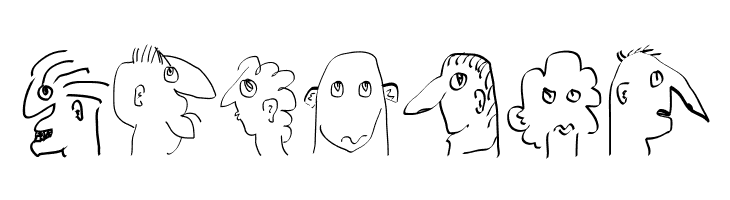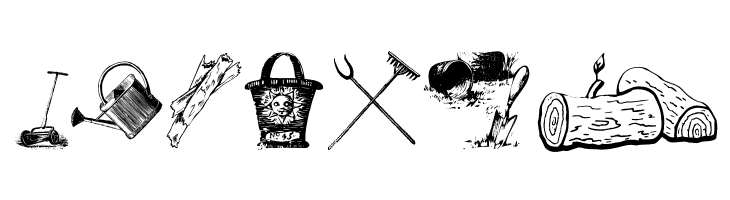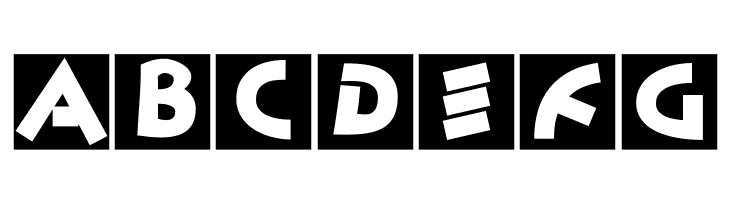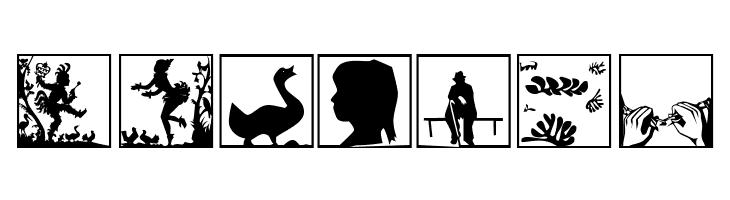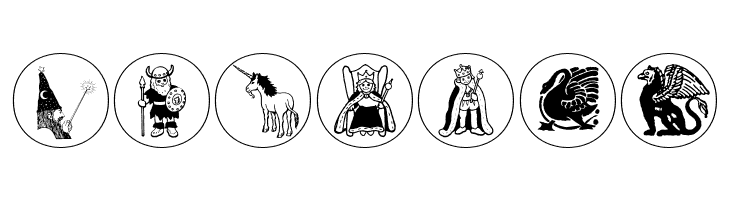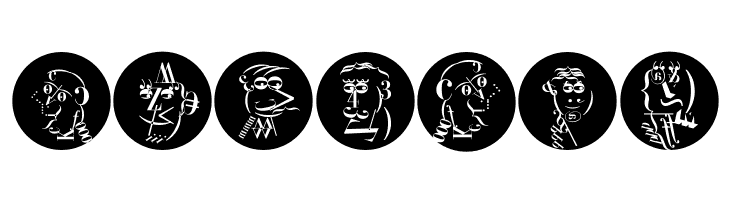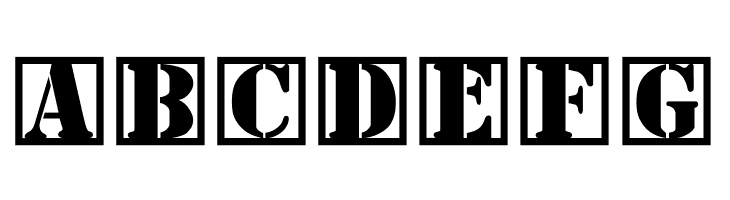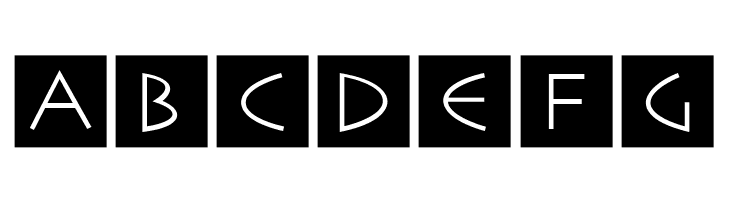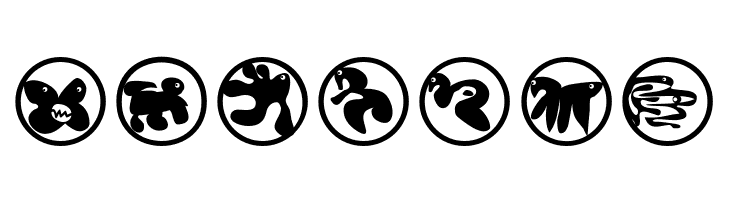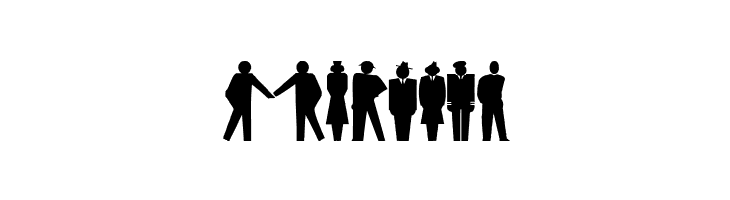
A symbol font based on maritime signal flags with bold geometric patterns.
A decorative dingbat font of geometric flag and template icons.
A whimsical collection of hand-drawn character illustrations in circular frames.
Hand-drawn caricature font with unique illustrated faces for each character.
Illustrative dingbat font with gardening and outdoor motifs.
A bold, playful font with a cartoonish, dynamic style.
A bold, decorative font with uppercase letters in framed squares.
Ornate silhouette illustrations form each character in a paper-cut style.
An ornate, calligraphy-inspired font with circular enclosures and decorative flourishes.
A bold, decorative font with characters encased in circles, offering a modern and playful style.
A bold, blackletter-inspired font with ornate, angular characters.
A bold, gear-themed decorative font with high contrast and industrial style.
Ornate pictogram font with mythological and fantasy motifs.
Ornate, mythological symbol-based decorative font.
A decorative font with whimsical, hand-drawn illustrations in each character.
Expressive, hand-drawn faces and figures replace traditional letterforms in a playful, decorative style.
Whimsical, illustrated font with mythical creatures in circles.
A bold and abstract collection of graphic symbols with a playful yet sophisticated style.
A bold stencil font with geometric, block-like characters enclosed in squares.
A playful, comic-style font with numerals and symbols in circles.
A decorative font with devilish figures encased in circles, offering a spooky and thematic style.
A bold, circular font with high contrast and modern style.
Eclectic pictogram font with detailed black-and-white illustrations.
A geometric, modern font with characters enclosed in squares.
Abstract, 3D grid-based decorative font with warped, floating shapes.
Ornamental font with vintage bird illustrations in circles.
Whimsical, animal-themed decorative font with bold circular enclosures.
A decorative silhouette font using human figures for each character.
An artistic and decorative font with intricate loops and swirls.
An artistic, decorative font with intricate swirls and loops.
An artistic font resembling ancient cave drawings with unique, decorative characters.
A playful and bold collection of numbers and symbols in circular shapes.
A bold, geometric display font with abstract and playful elements.
Geometric op-art display font with warped grid patterns.
Abstract, hand-drawn decorative glyphs with organic, expressive forms.